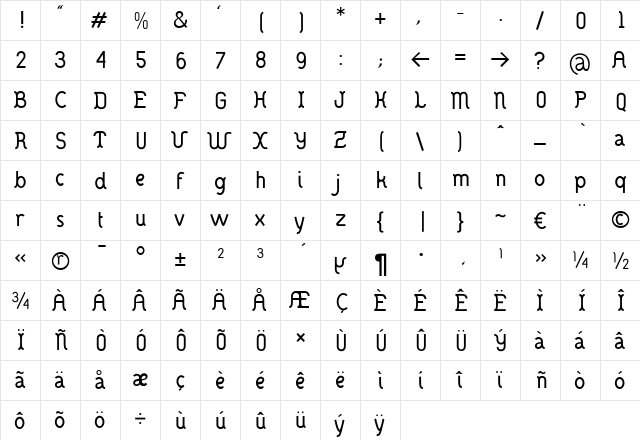
DANOISE Regular
Design Context for DANOISE Typeface
DANOISE is a composed and adaptable typeface that performs quietly and consistently across a wide range of design contexts.